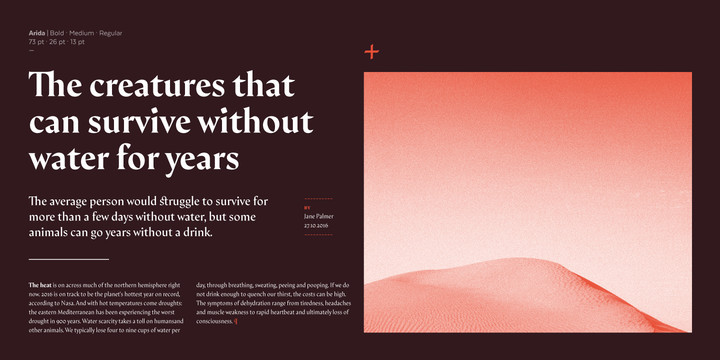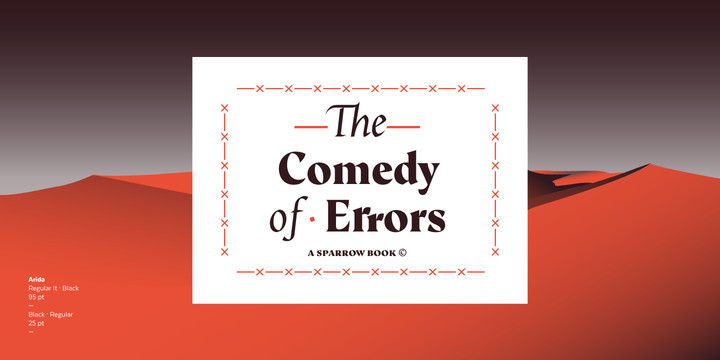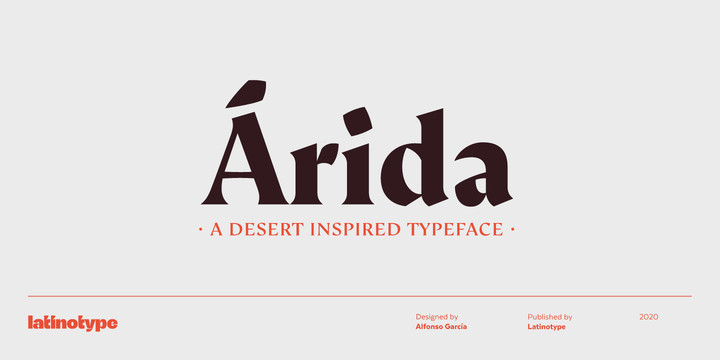
Arida Font
Árida pays homage to the Argentinian city of San Juan, located in the semi-desert Cuyo region, where cacti are abundant; a characteristic feature of arid habitats.
Árida, inspired by the vegetation of the place, looks sharp and aggressive at large sizes but it also feels friendly at a smaller scale⁠—portraying the dichotomy between humans and nature.